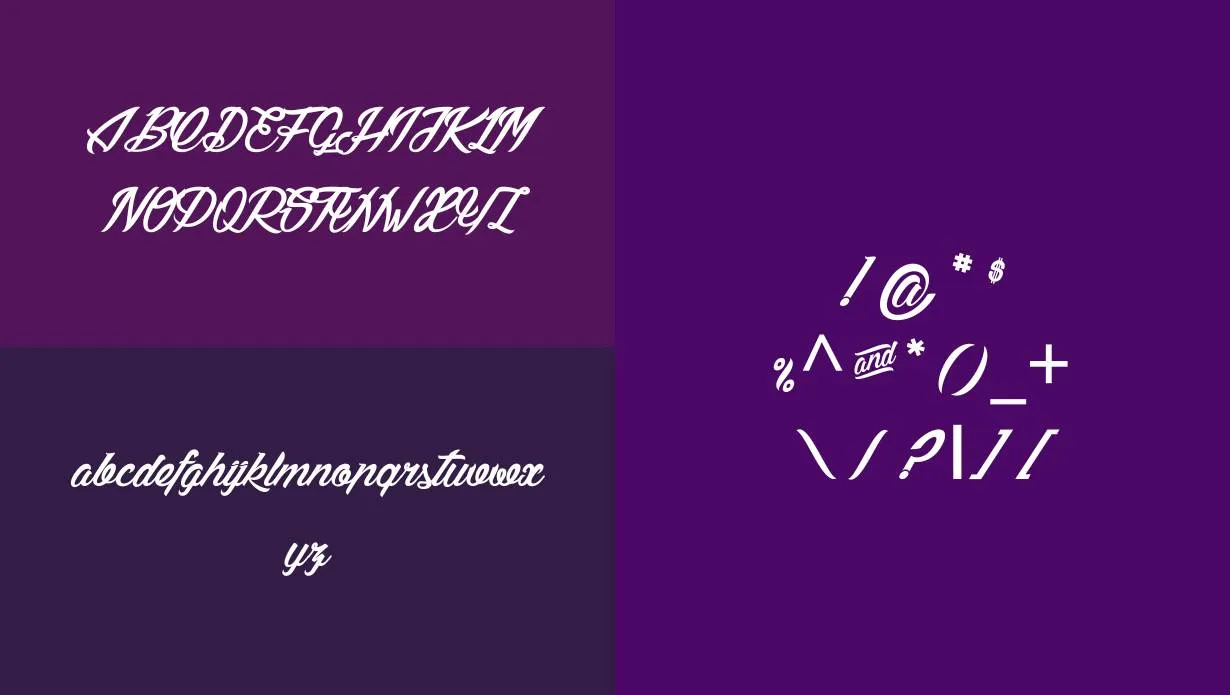
Lily of the Valley font offers a delicate and elegant style that’s often used in Adobe CSS for designs like wedding invitations, feminine branding, and decorative graphics. Its graceful appearance lends a touch of sophistication and beauty to various projects.
In Adobe CSS, it’s a common choice for headings, logos, and decorative elements, providing a refined and romantic look. In Microsoft Word, this font enhances the beauty of document titles and headings, giving them an elegant and graceful aesthetic. Supported file formats for this font include TTF, OTF, and EOT.